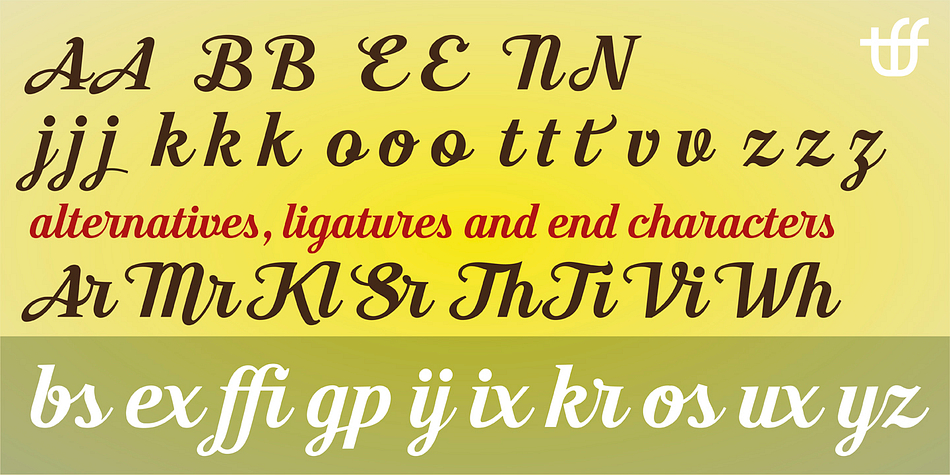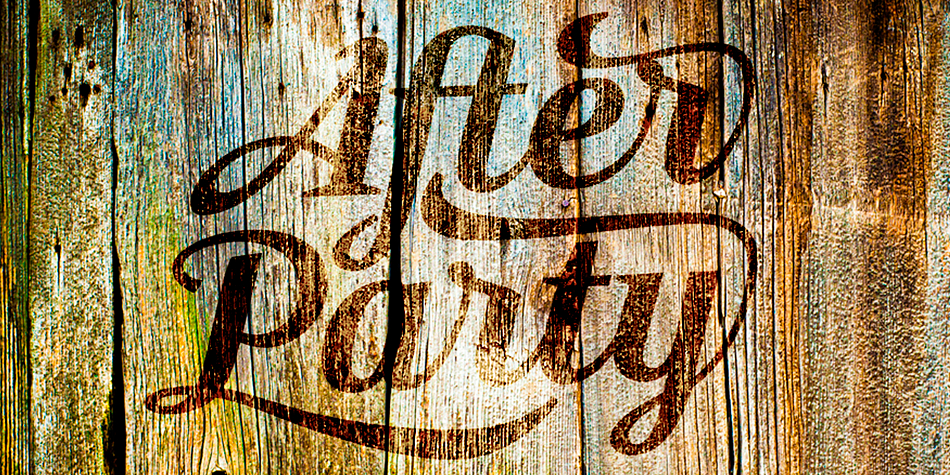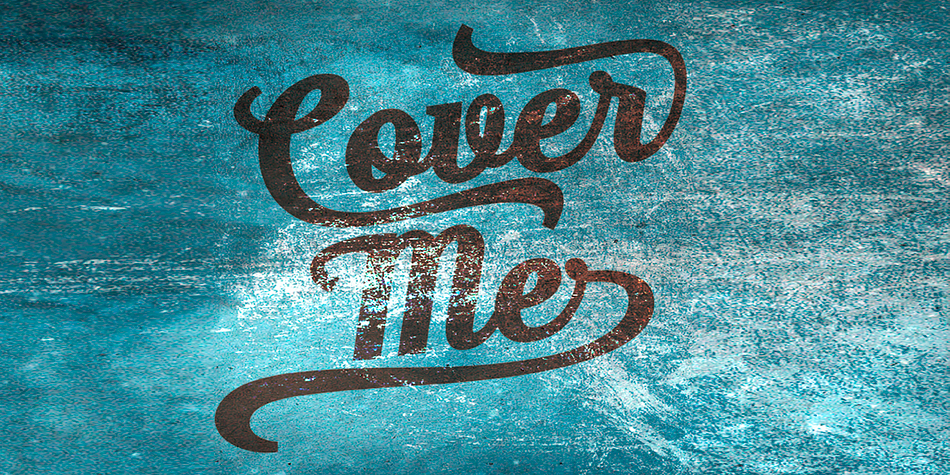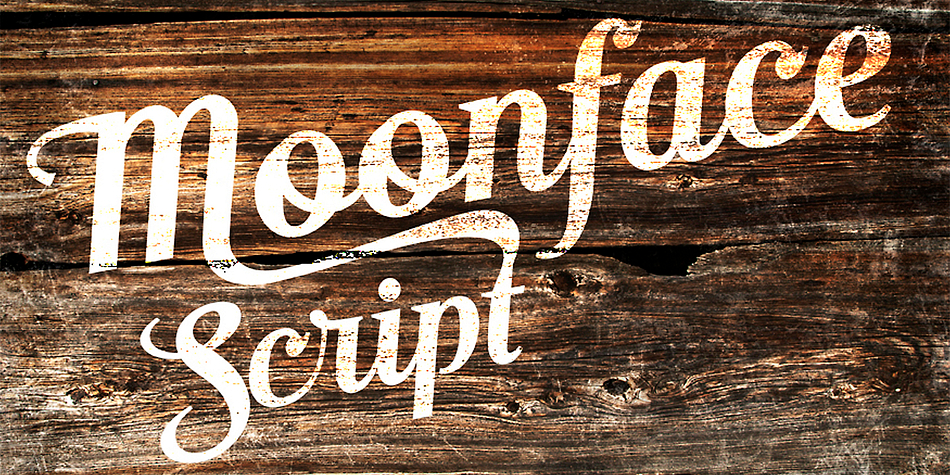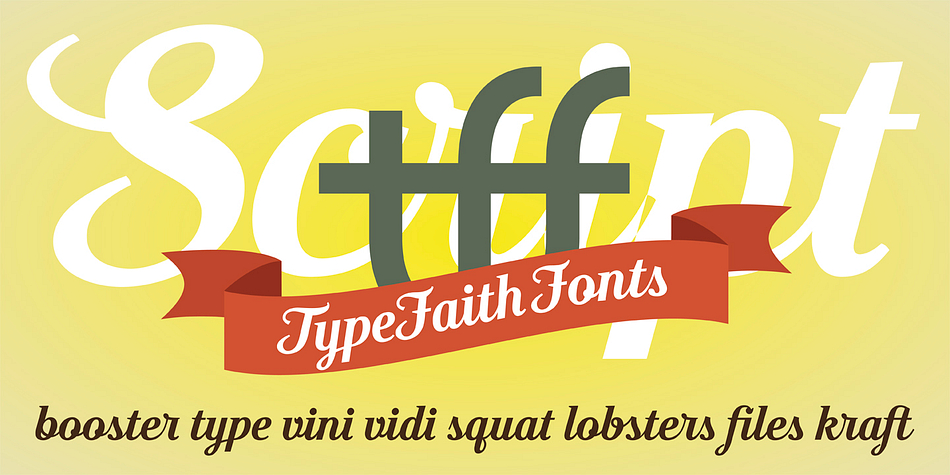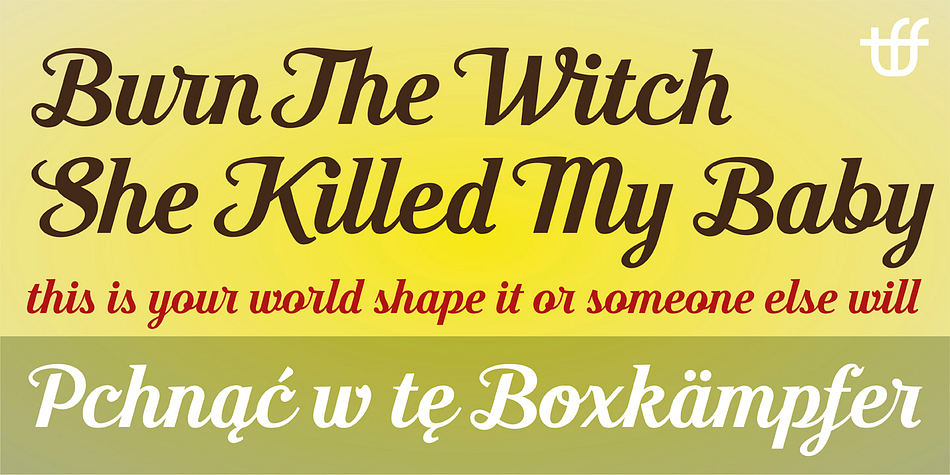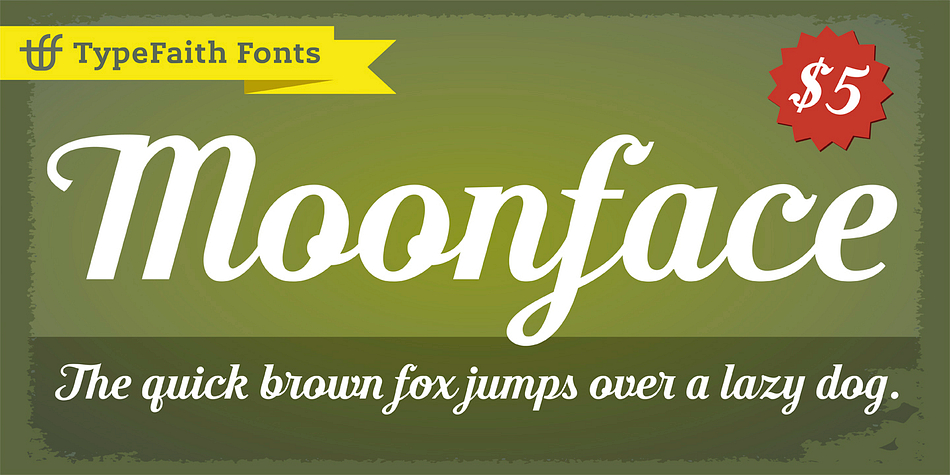
Moonface Script is a brush script font family. This typeface has two styles and was published by Typefaith Fonts.
Moonface Script is a characteristic vintage retro font with lots of ligatures, alternatives and special characters to end.